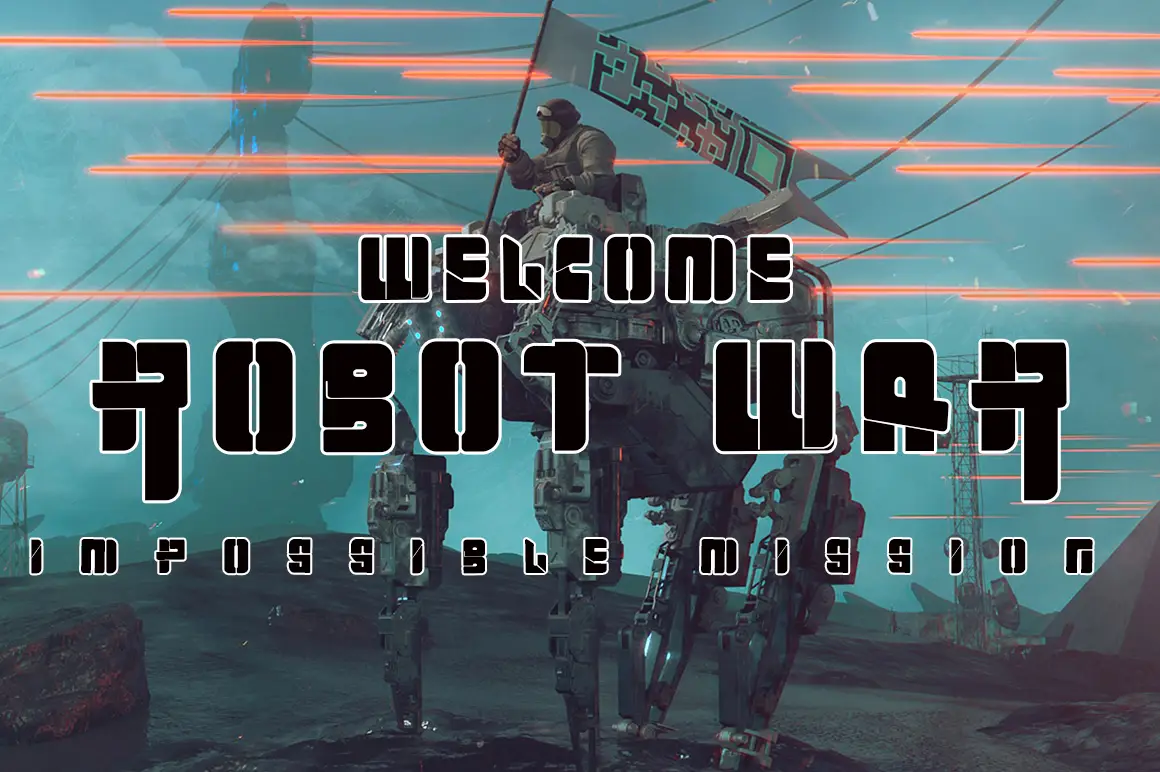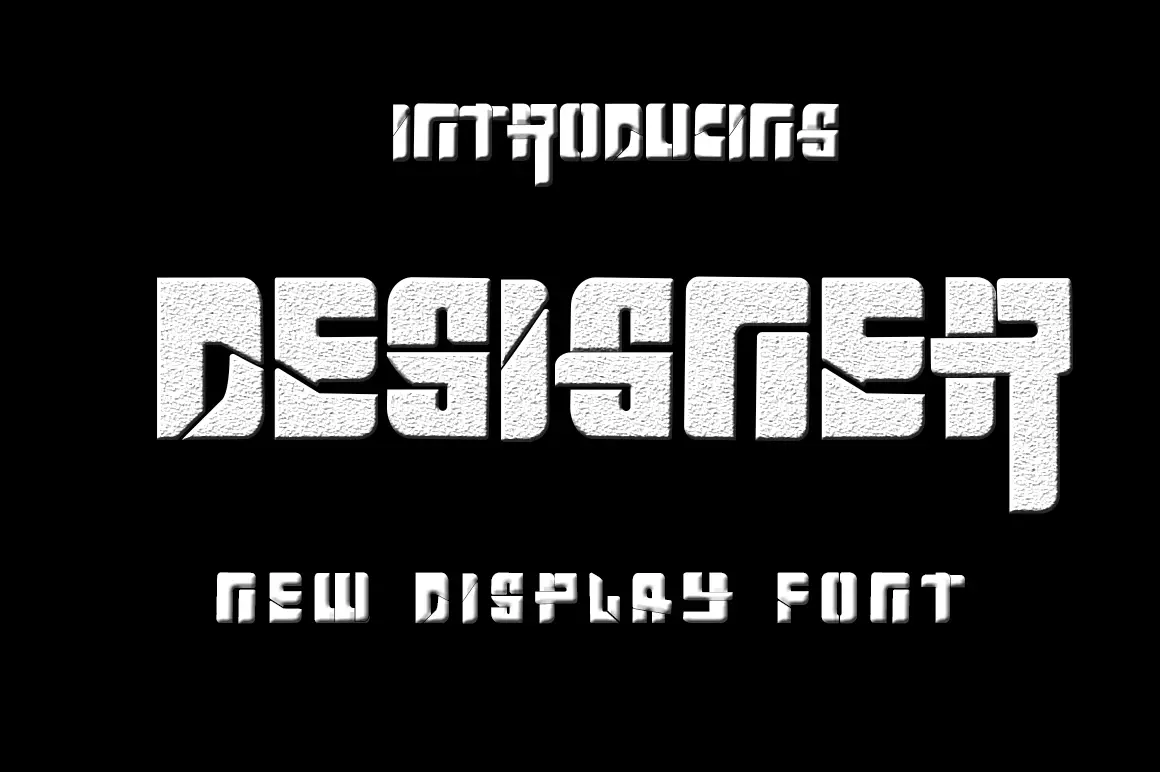
Designer Display Font
The Designer Display Font is a stunning typeface that brings a unique flair to your projects. With its modern and artistic design, this font is perfect for creating eye-catching branding, logos, and promotional materials.
• Ideal for web and print applications
• Use in branding and advertising materials
• Perfect for headlines and titles